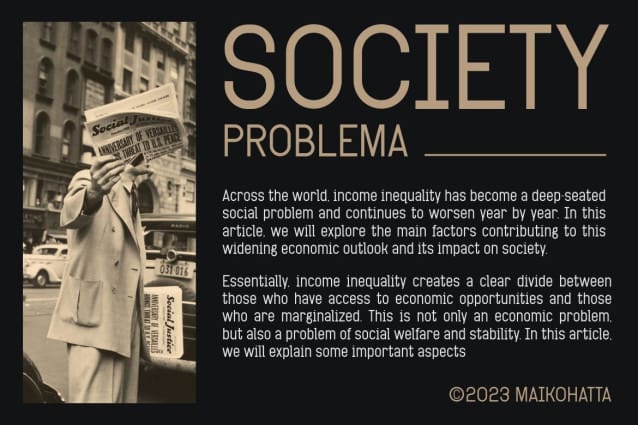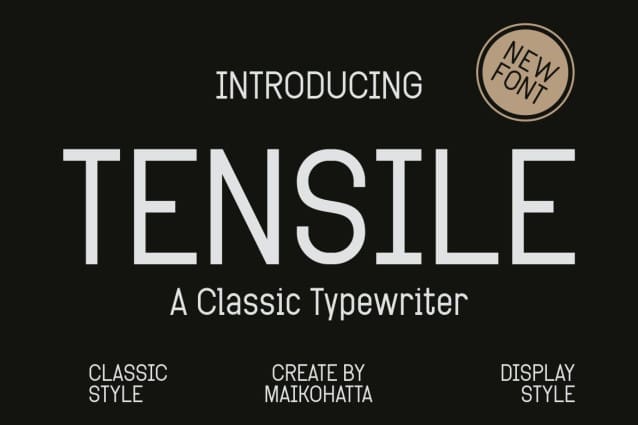
Tensile Font
Tensile Font – Classic Typewriter. A sans-serif font with a typewriter style tends to be simple and minimalist, void of excessive embellishments or decorations. This makes it suitable for text that requires a serious and professional appearance. Sans-serif fonts with a typewriter style are often employed in technical documents, computer code, and text-based reports due to their readability even in lengthy texts.